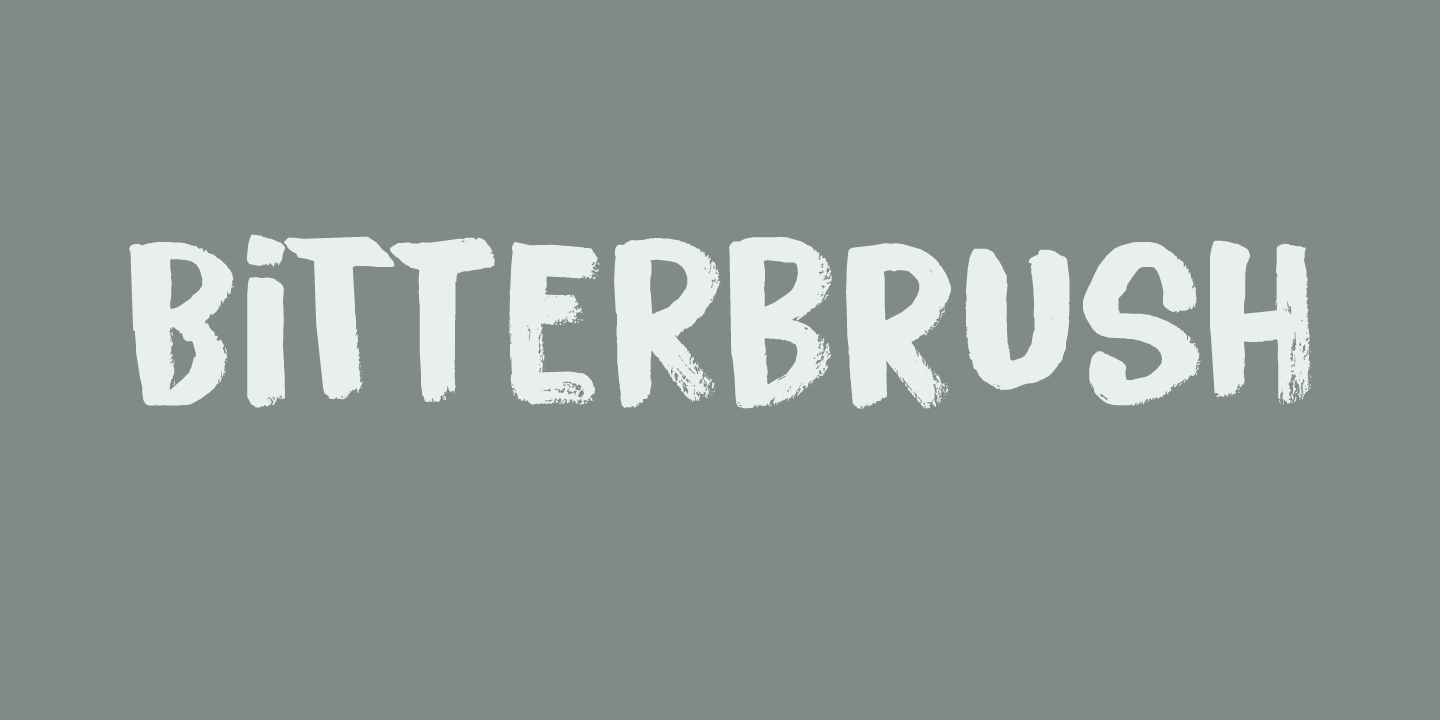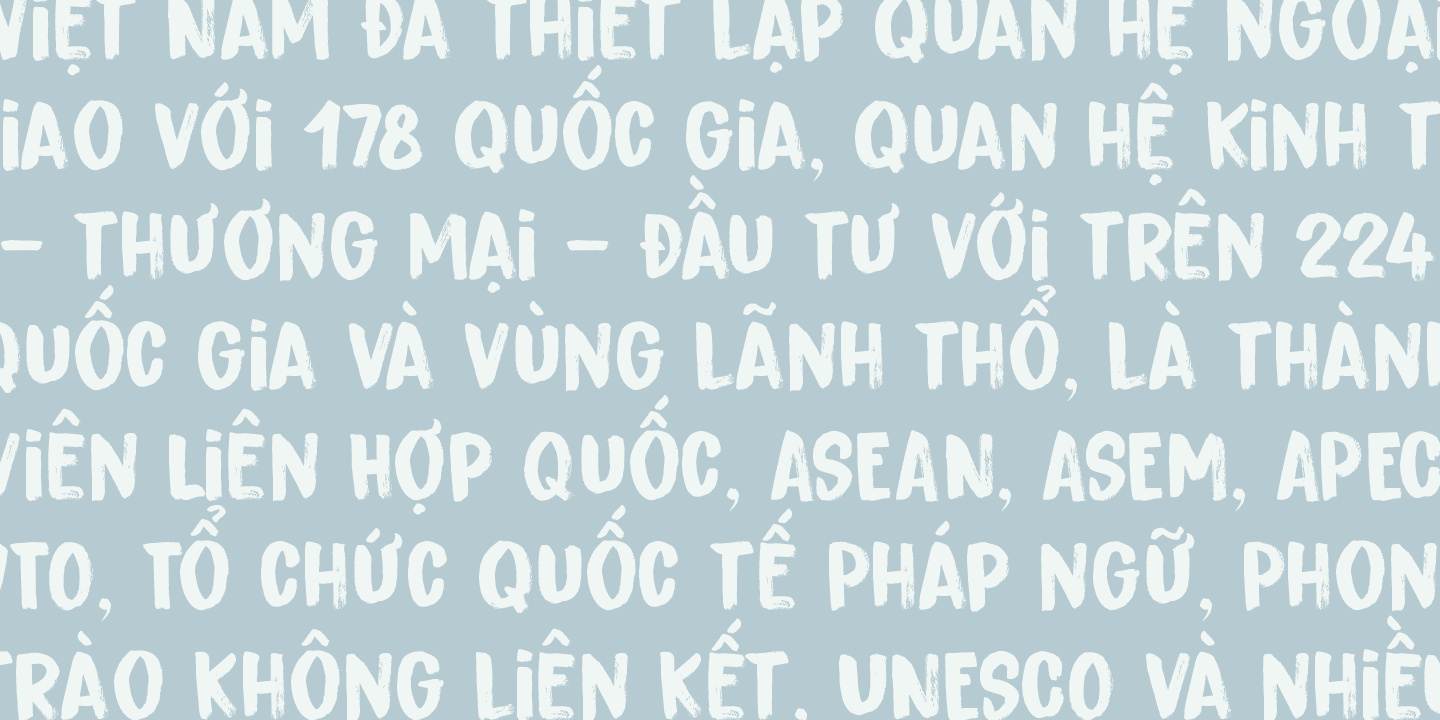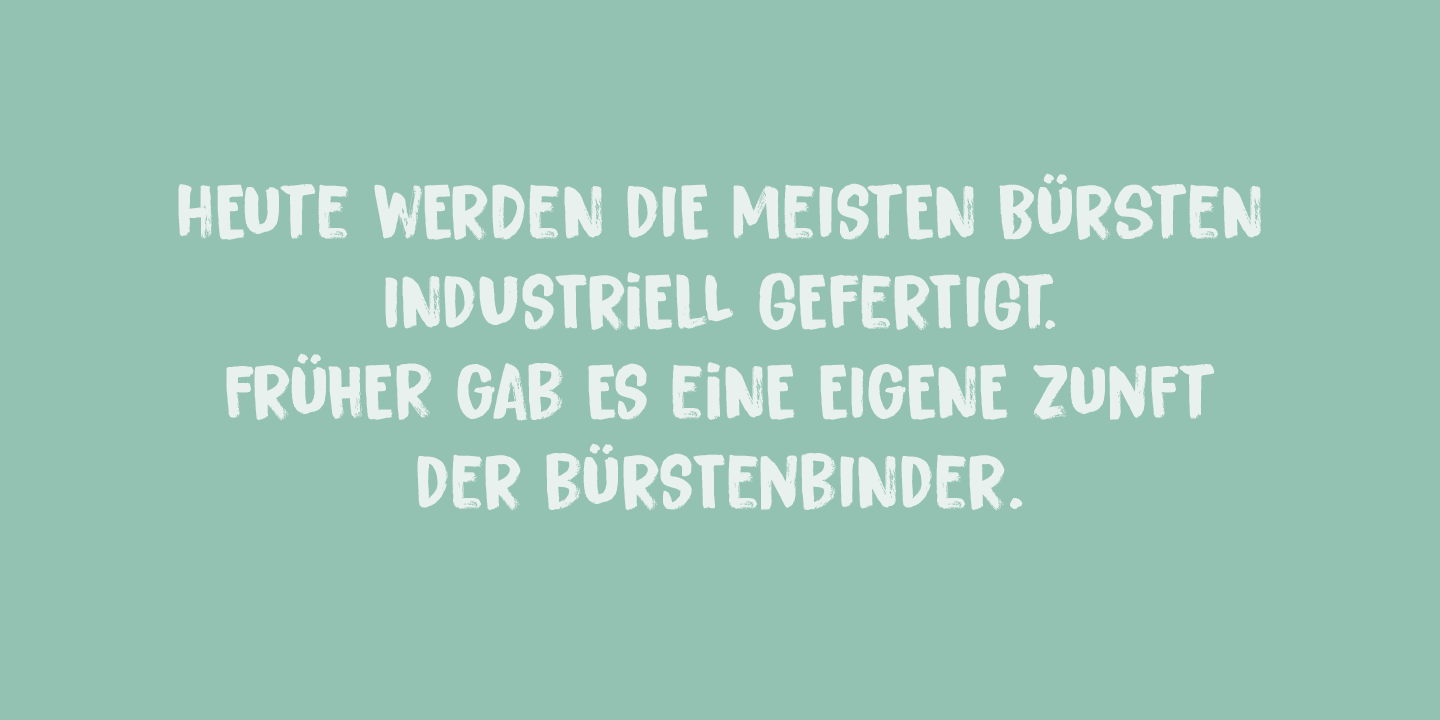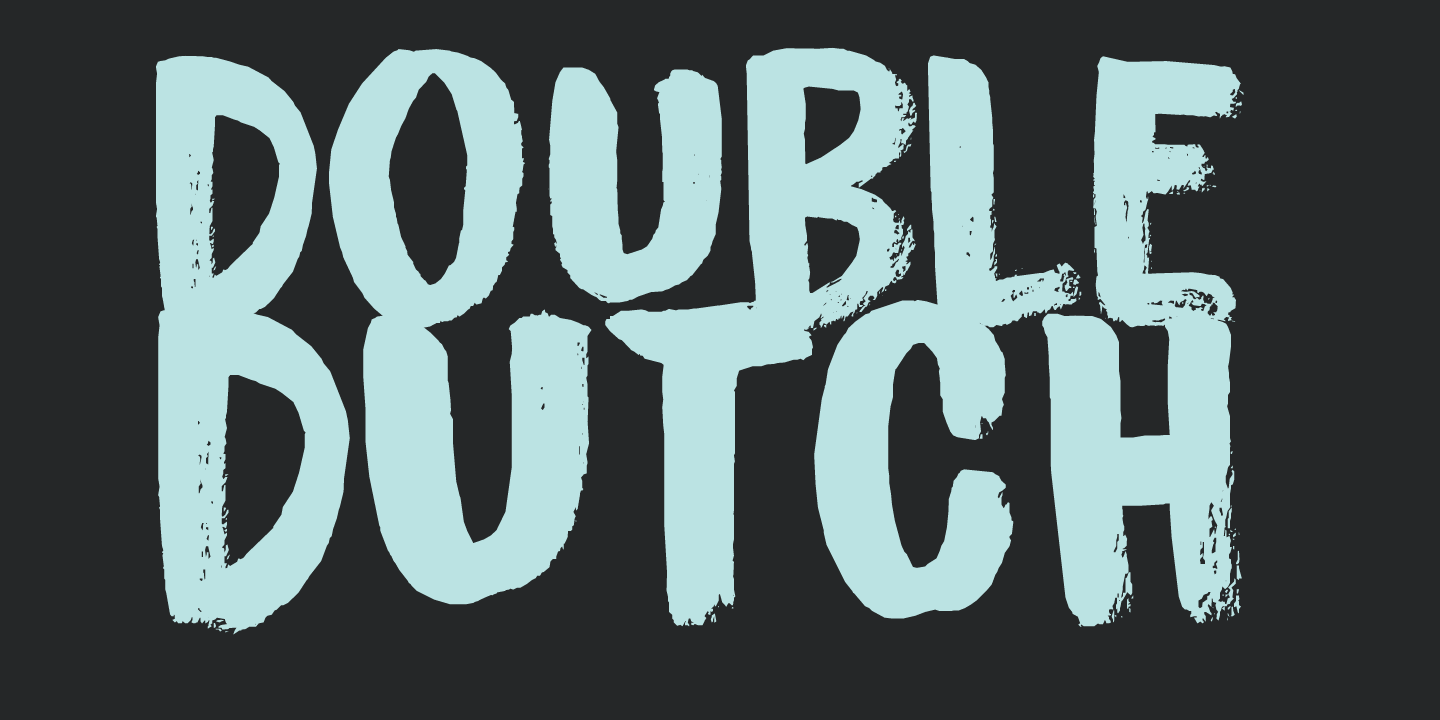
Bitterbrush
I needed a name with ?brush? in it and most have already been taken, so I did a little digging and found out that Purshia tridentata, a flowering plant native to the mountainous areas of western North America is called bitterbrush. It is also known as antelope brush, quinine brush and buckbrush - but I settled on Bitterbrush.
There's nothing bitter about Bitterbrush. It is actually a very sweet hand brushed font. It comes with ligatures for double letter combinations and a truck load of diacritics. And (something I am very proud of): it supports the Vietnamese language!